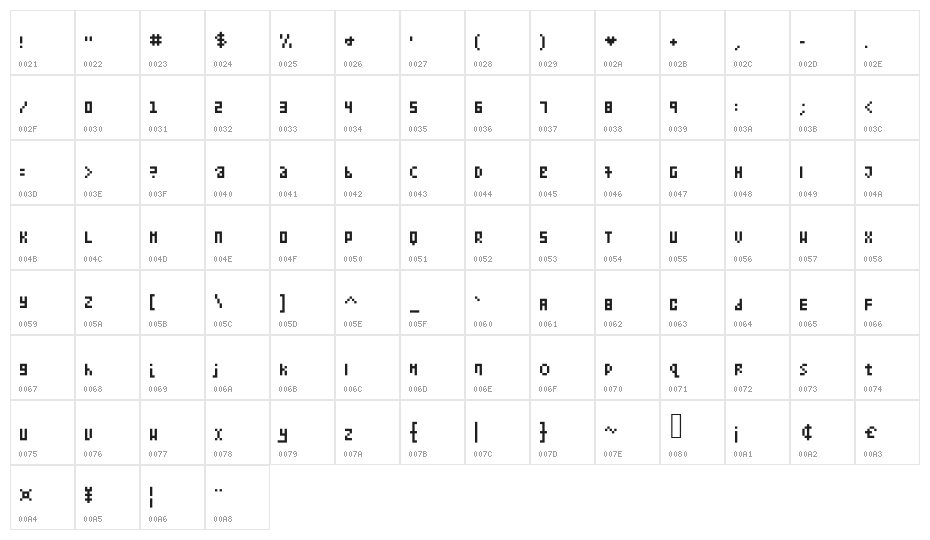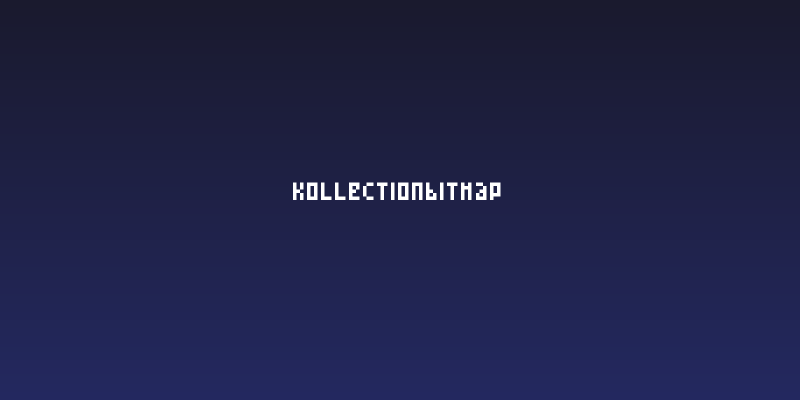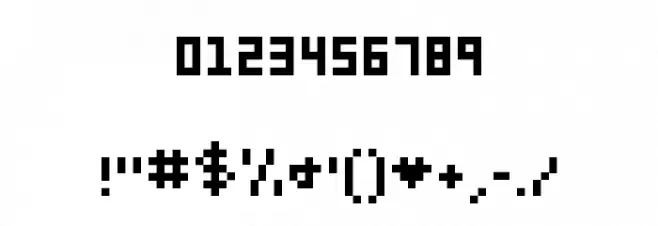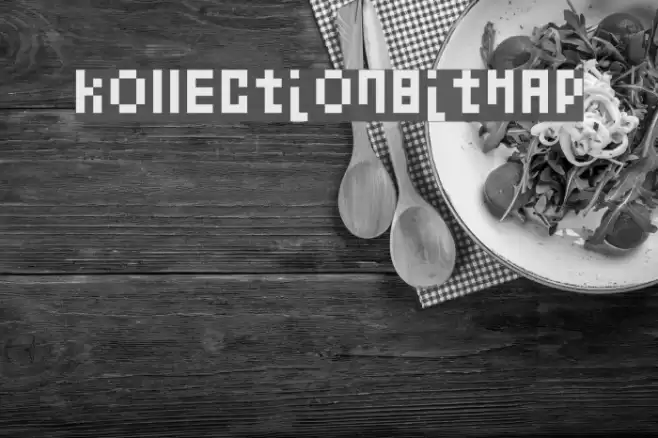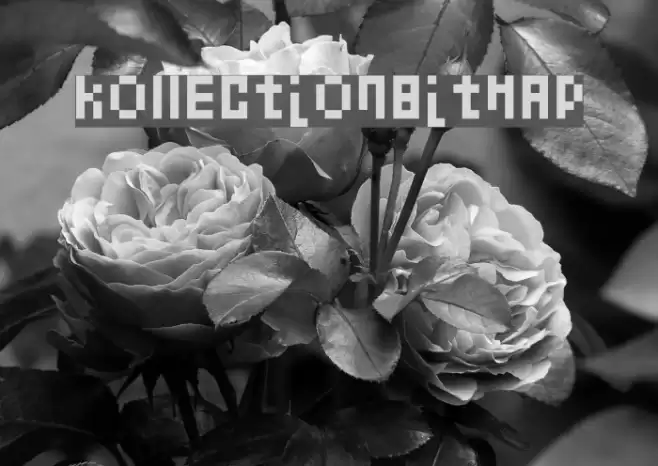
kollectionbitmap Font
kollectionbitmap Description
This font features a bold, pixelated design reminiscent of early digital displays and retro video games. Each character is constructed with a blocky, grid-like appearance, emphasizing a uniform and geometric style. The uppercase and lowercase letters maintain a consistent height, contributing to a cohesive and structured look. Numbers and special characters follow the same pixelated pattern, ensuring visual harmony across all glyphs. The font's simplicity and clarity make it highly legible, even at smaller sizes, while its nostalgic aesthetic evokes a sense of vintage digital technology.
| Overall Style | Vintage |
| Use Case | Headlines, Logos, Digital Art |
| Proposed Projects | Ideal for projects involving retro gaming themes, digital art, tech-inspired designs, or any creative work that seeks to evoke nostalgia for early digital aesthetics. |